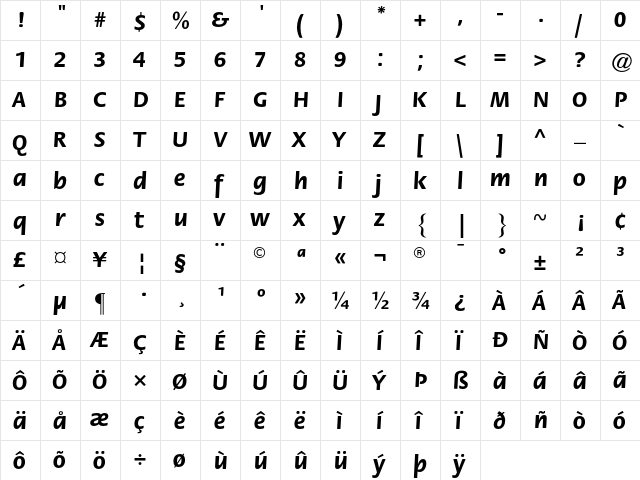
ITC Flora Bold
Design Context for ITC Flora Typeface
ITC Flora is a composed and adaptable typeface that performs quietly and consistently across a wide range of design contexts. The heavy weight commands attention and anchors typographic hierarchies.
Pro Tip: Pair ITC Flora with a font of contrasting weight or personality to build a more expressive typographic hierarchy.